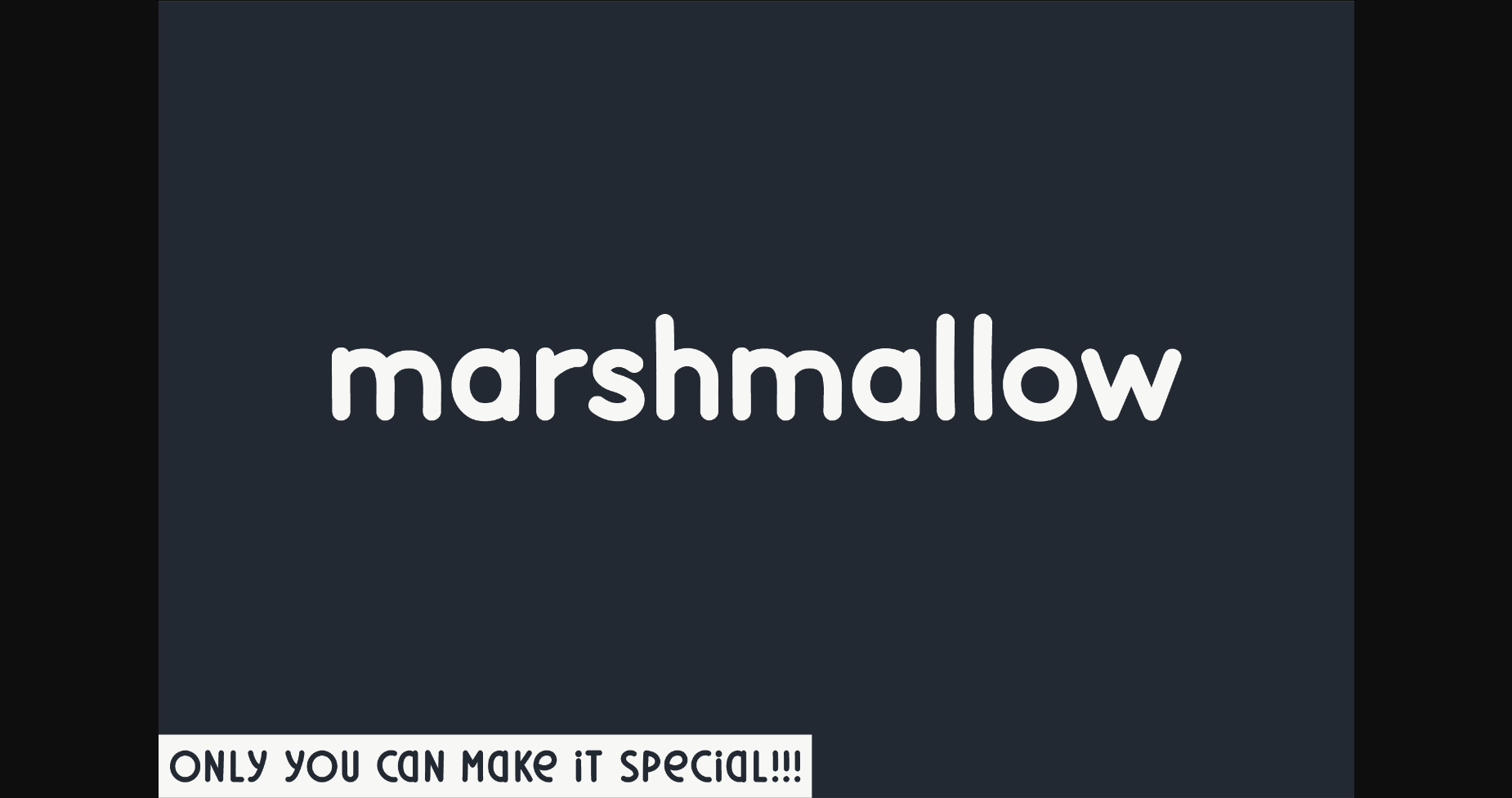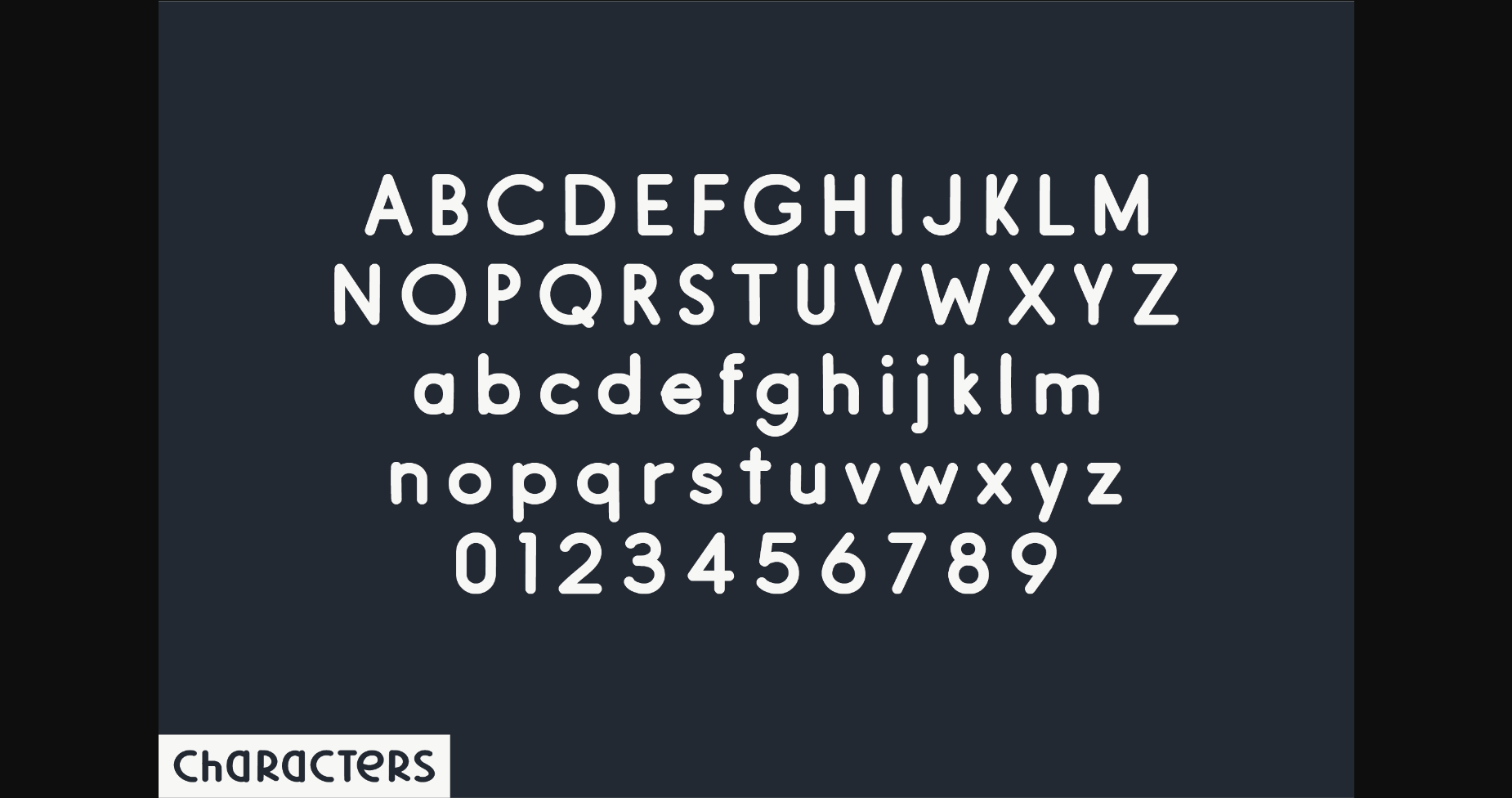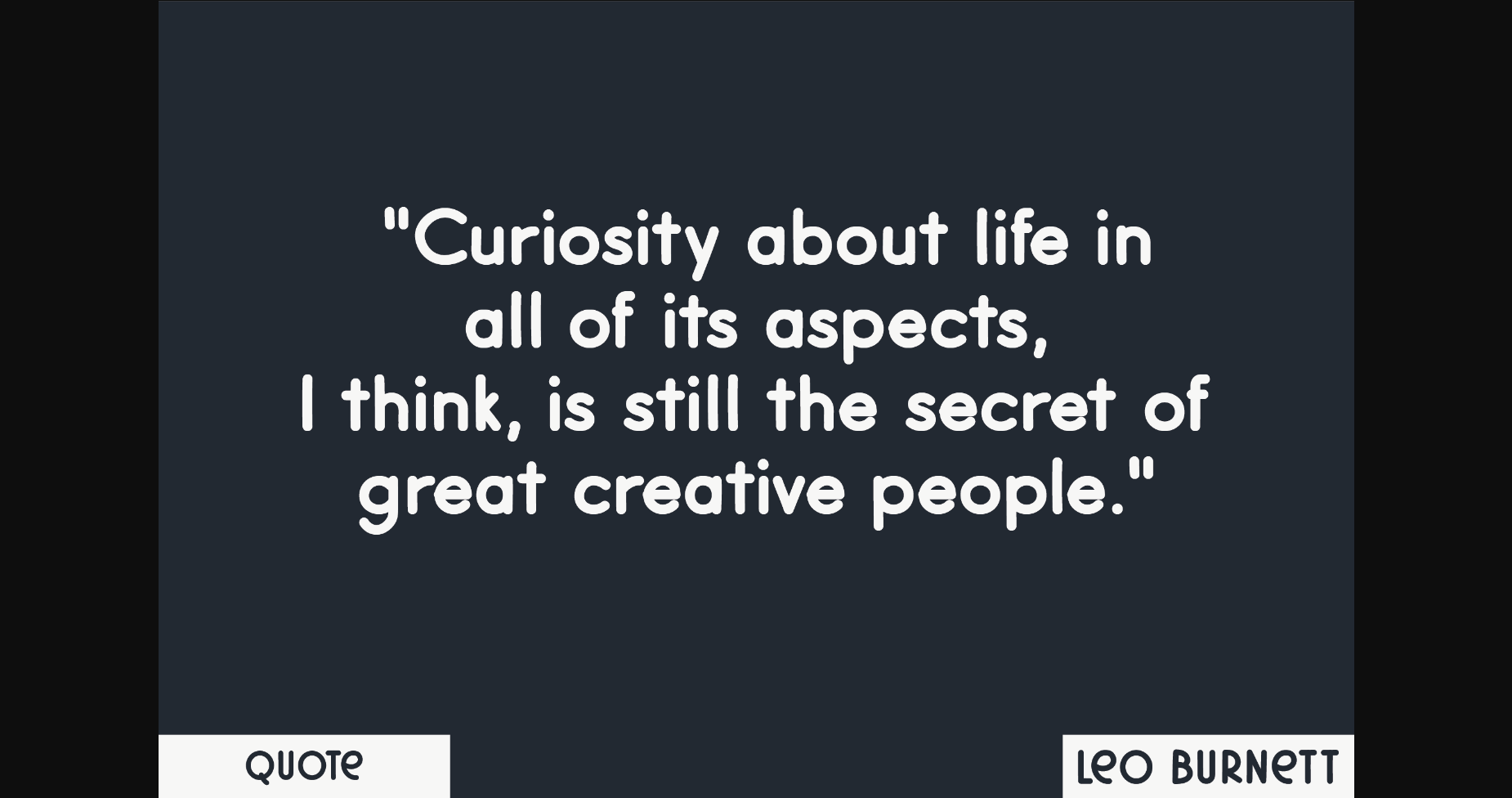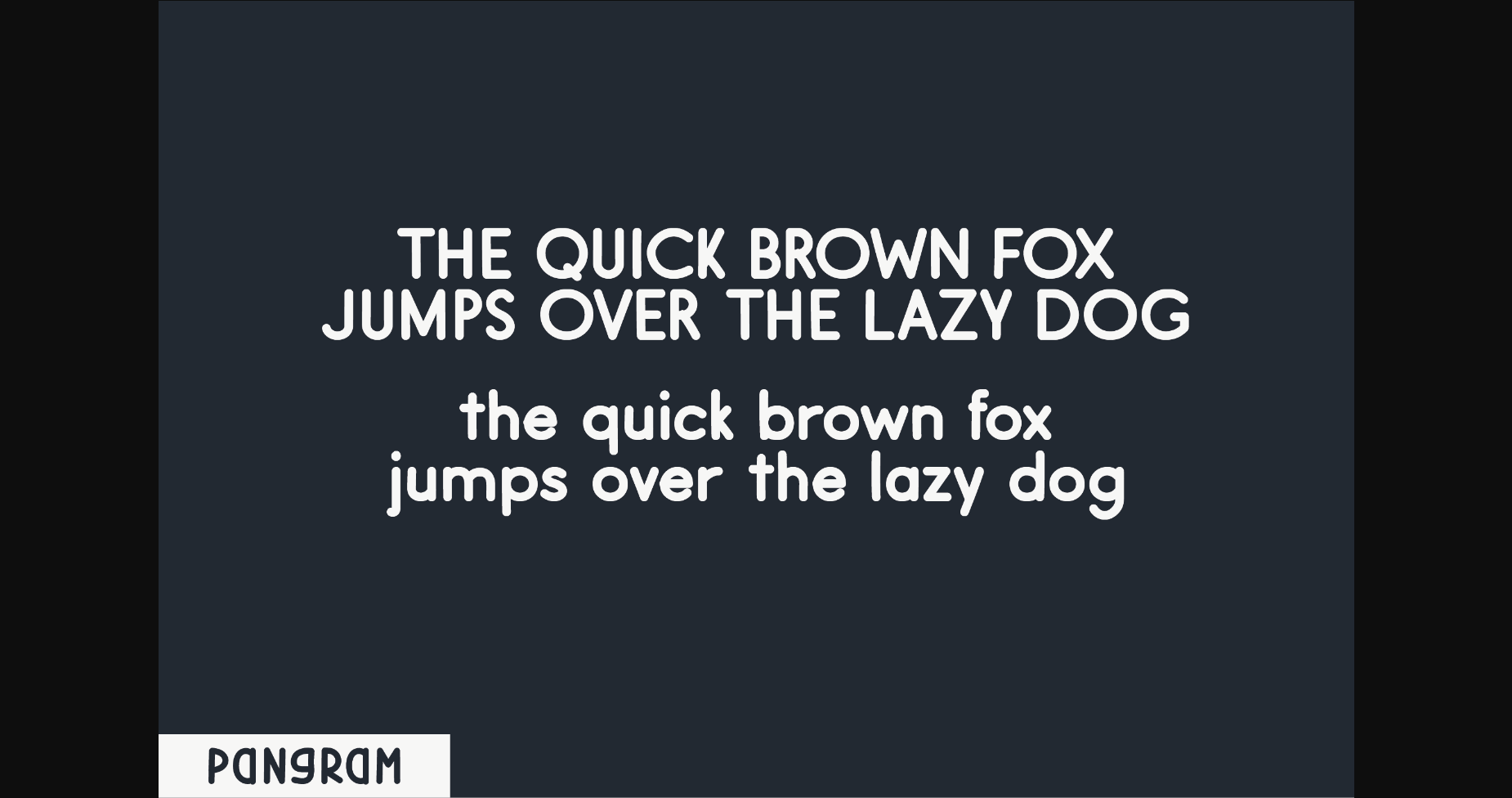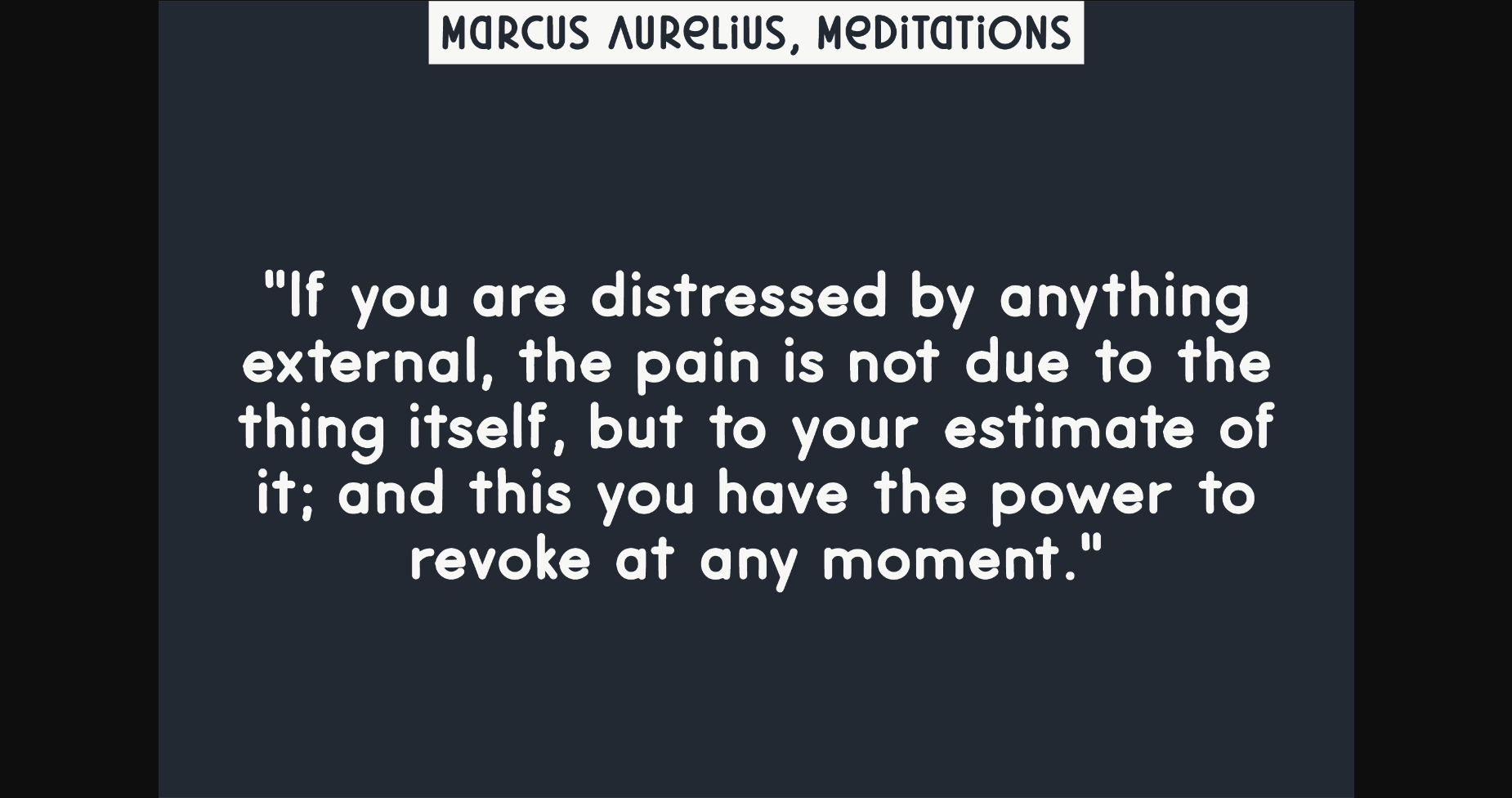
Marshmallow Font
About Marshmallow Font
Marshmallow is a bold and unique sans serif font, perfect for quotes, notes, tees, logos, social media and any design that requires a classic touch.